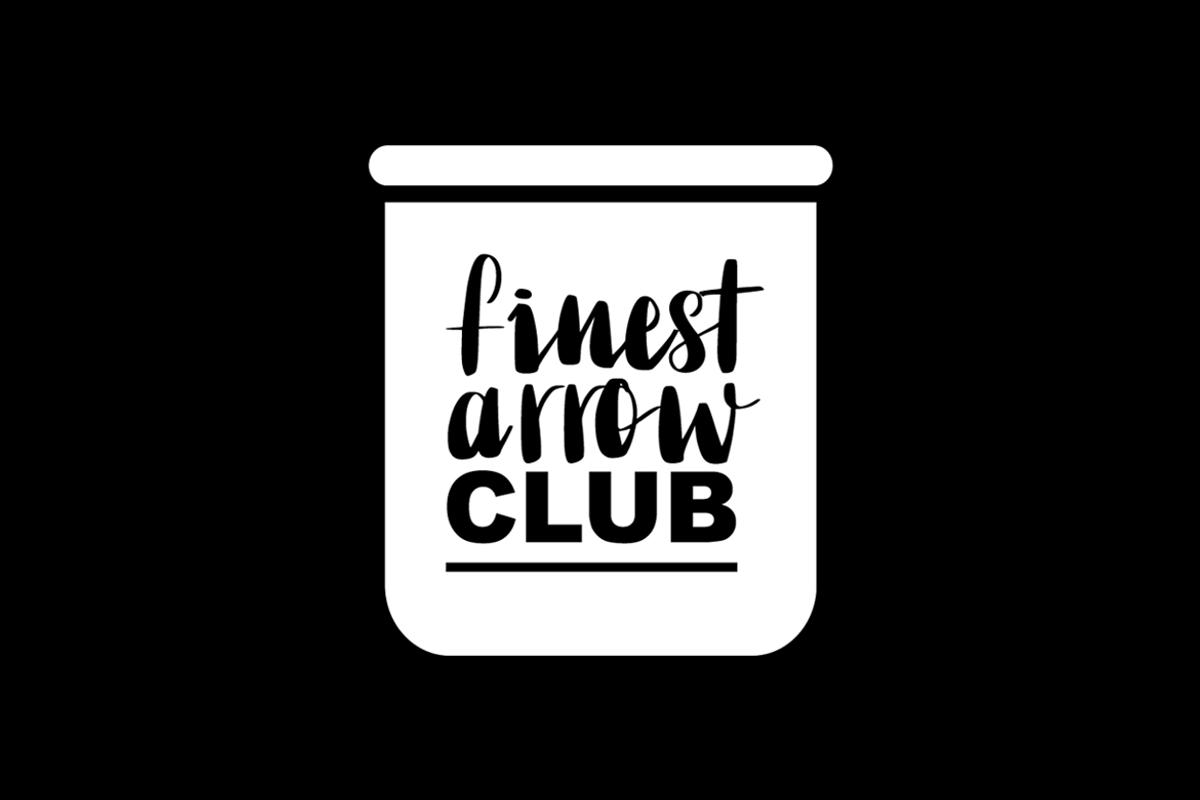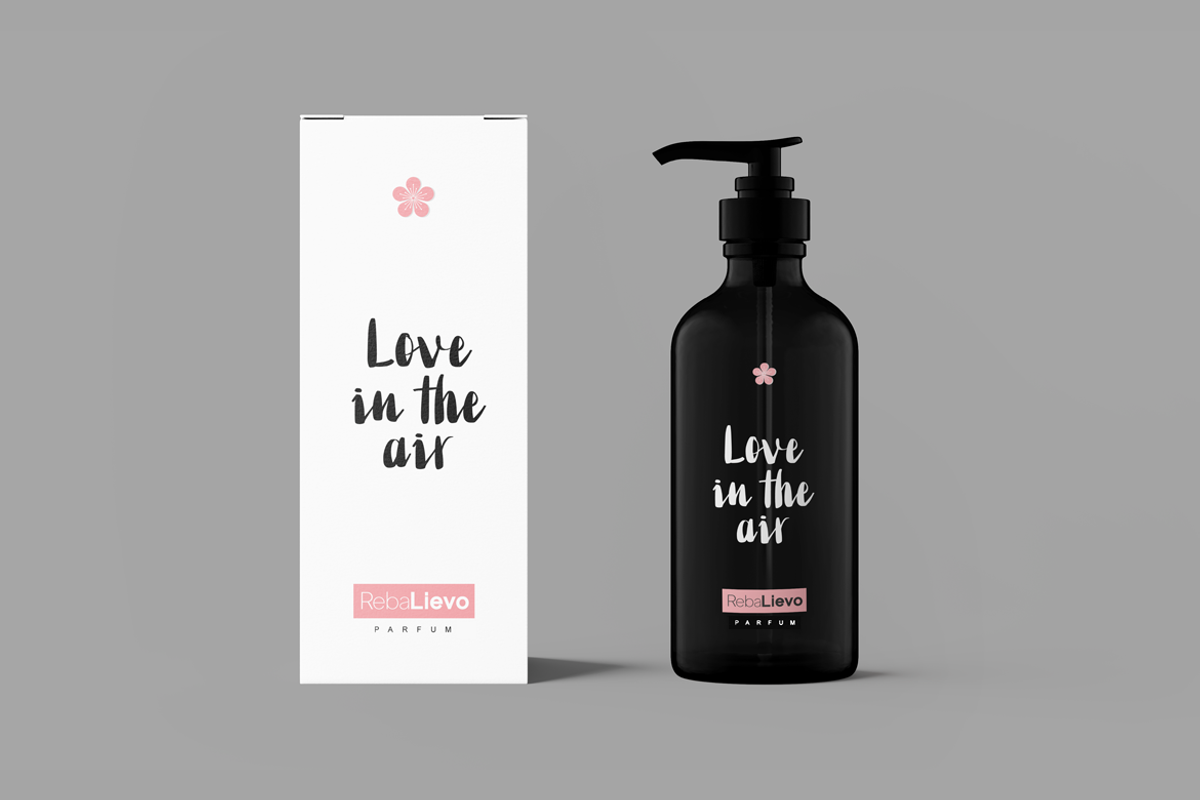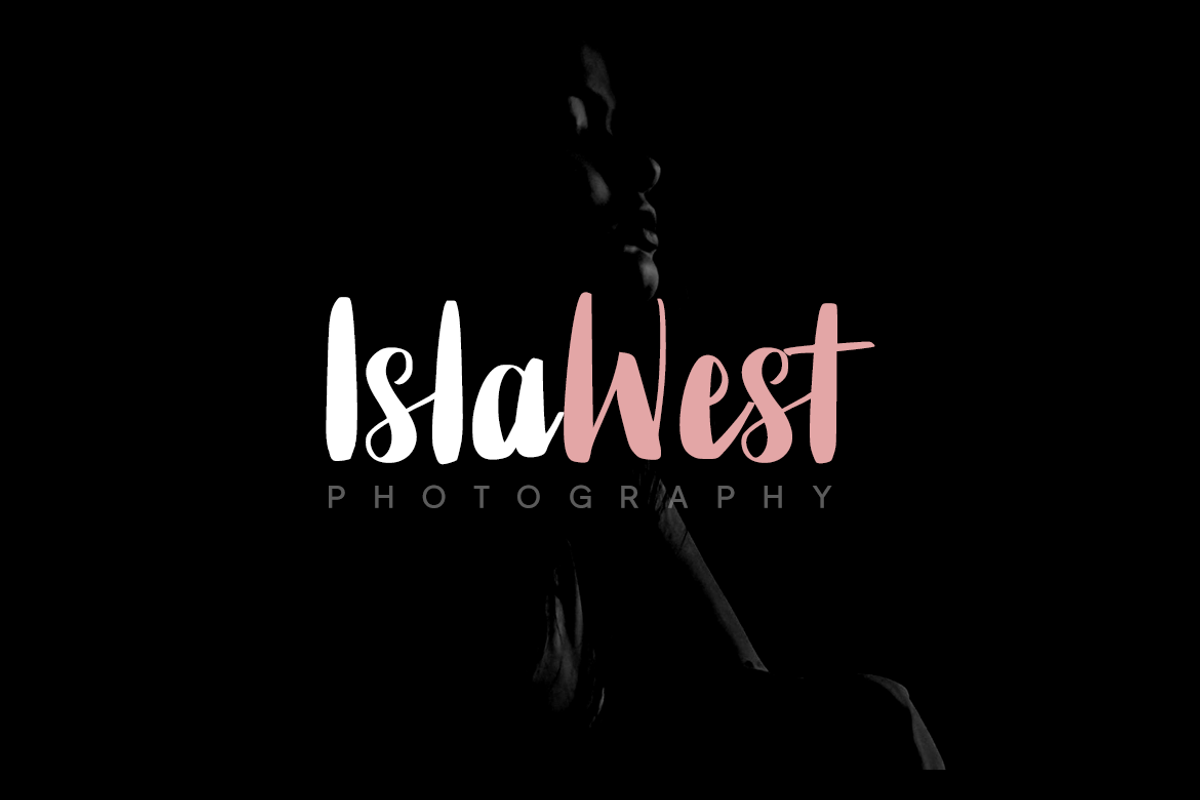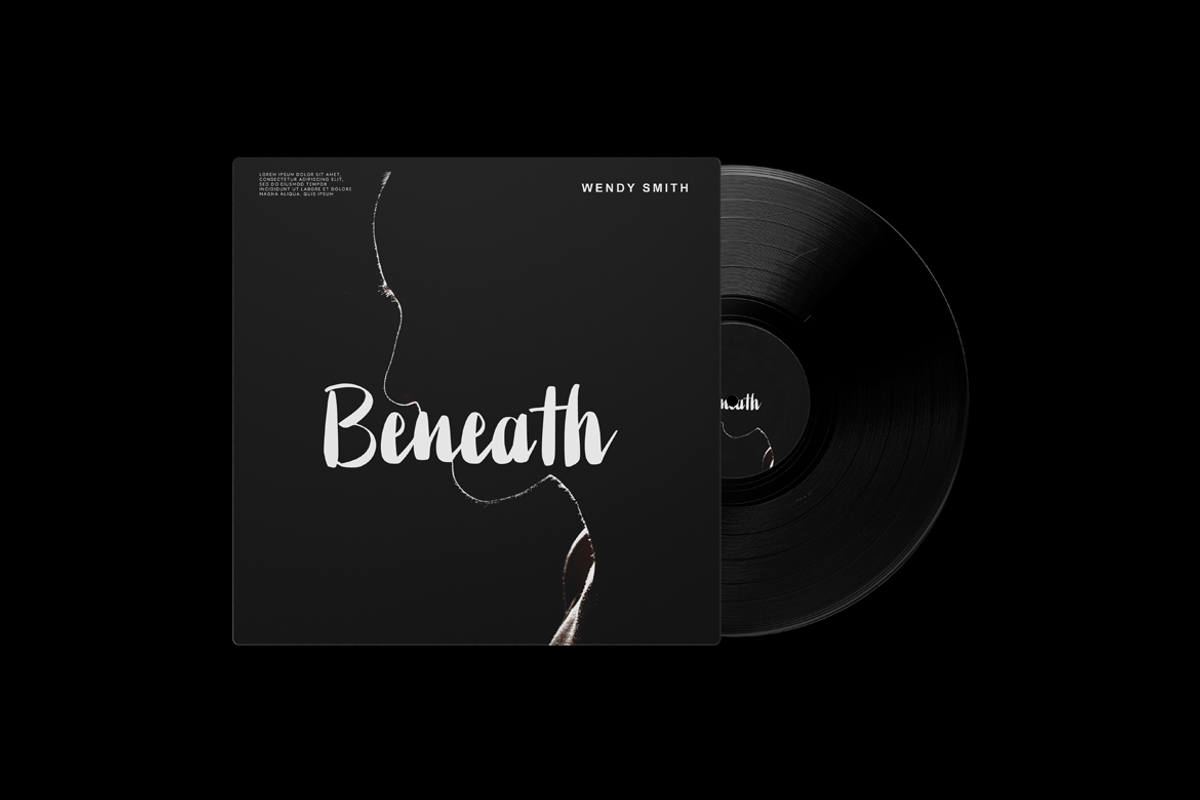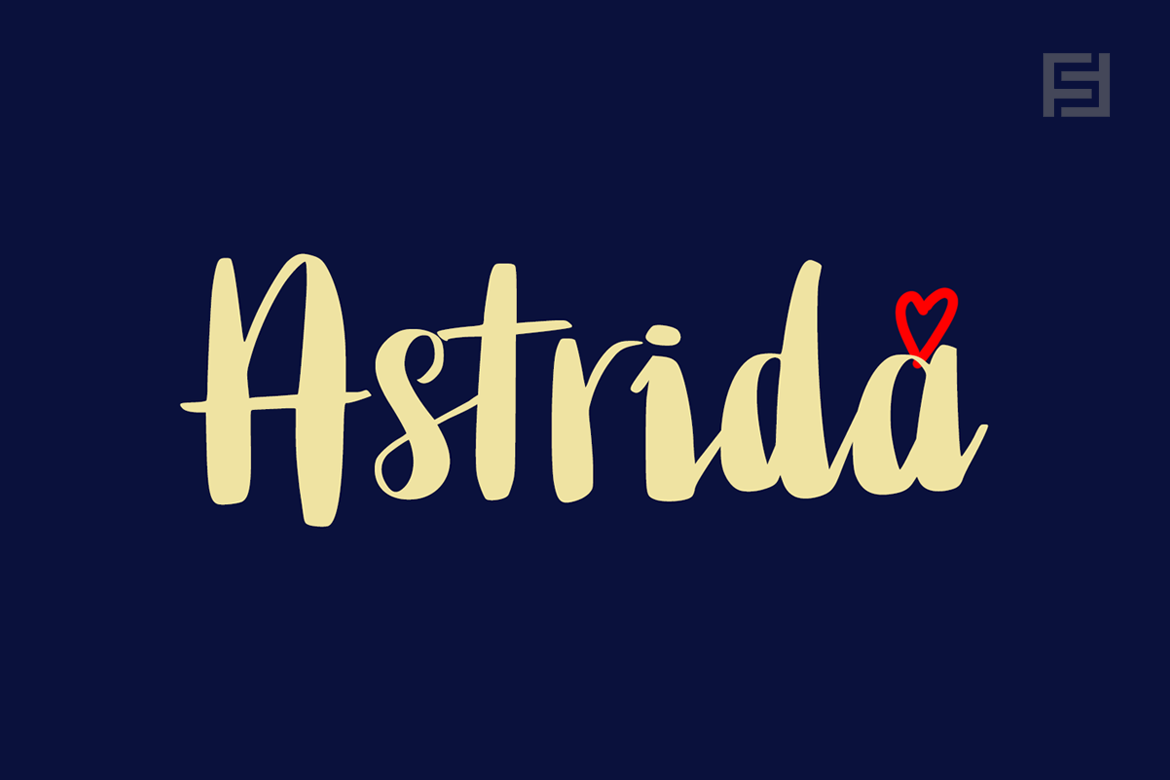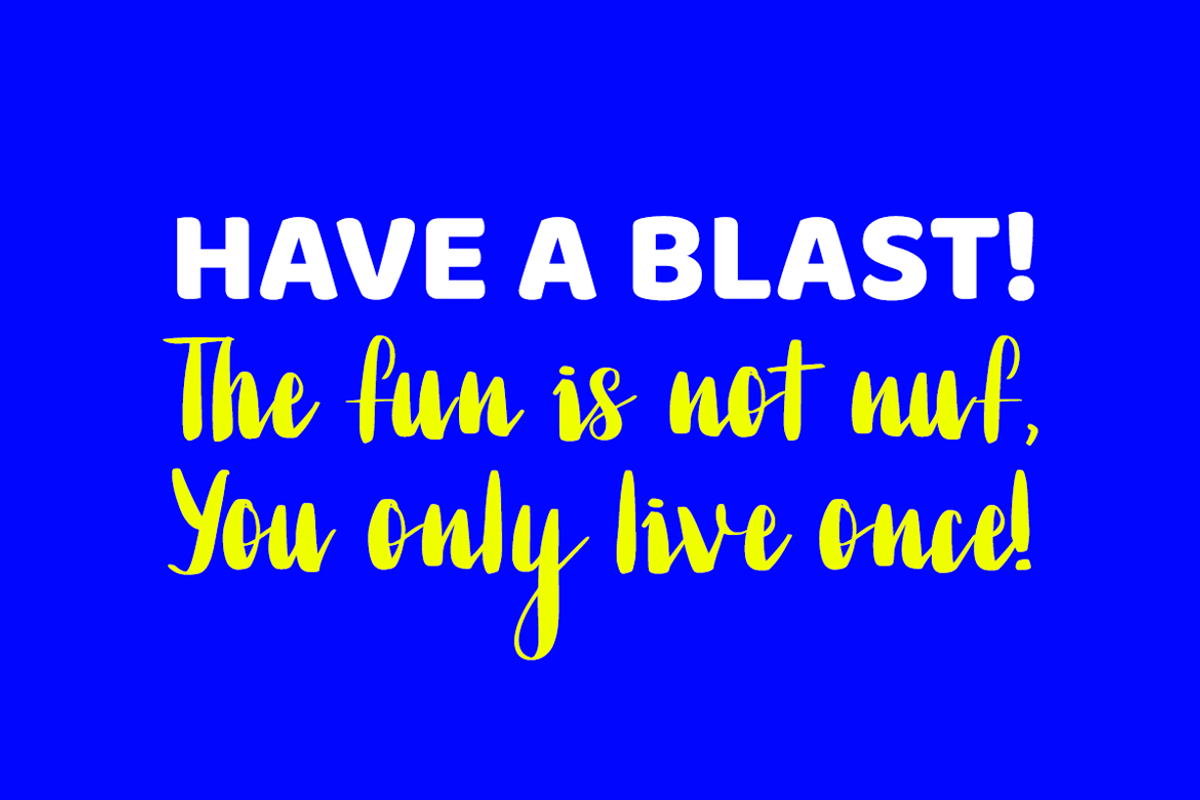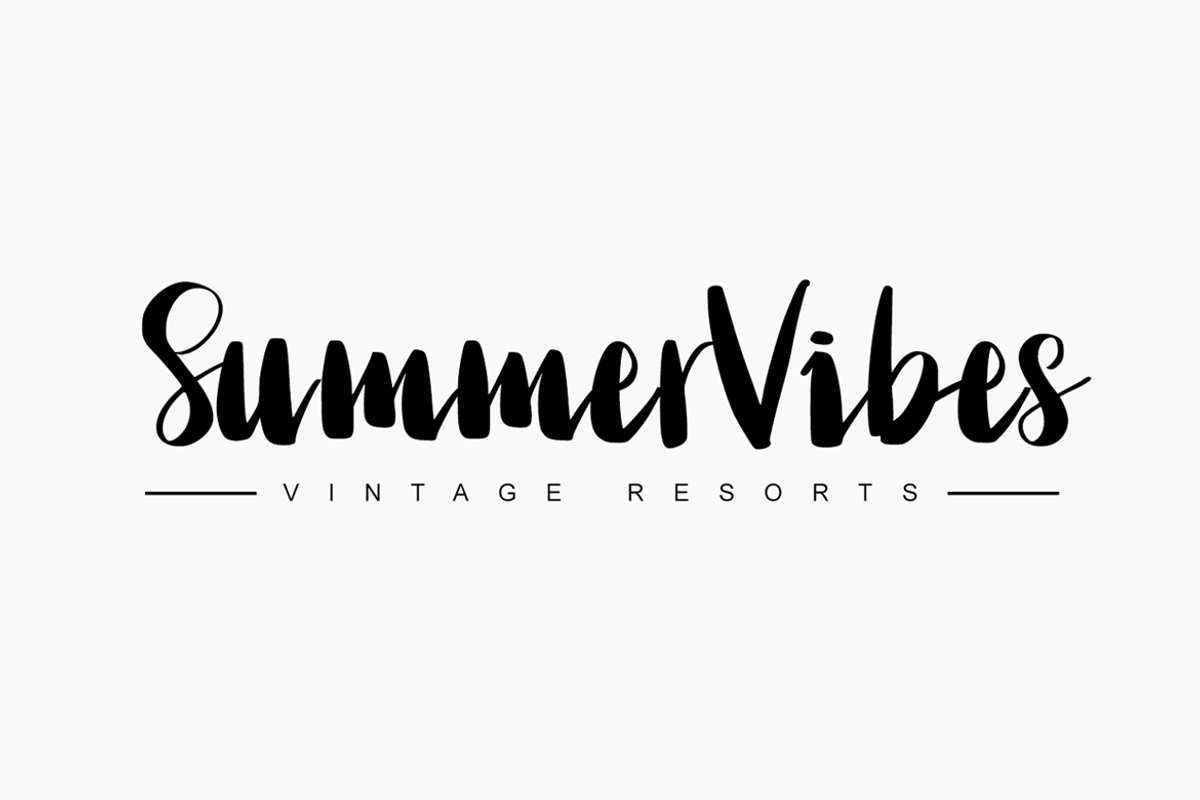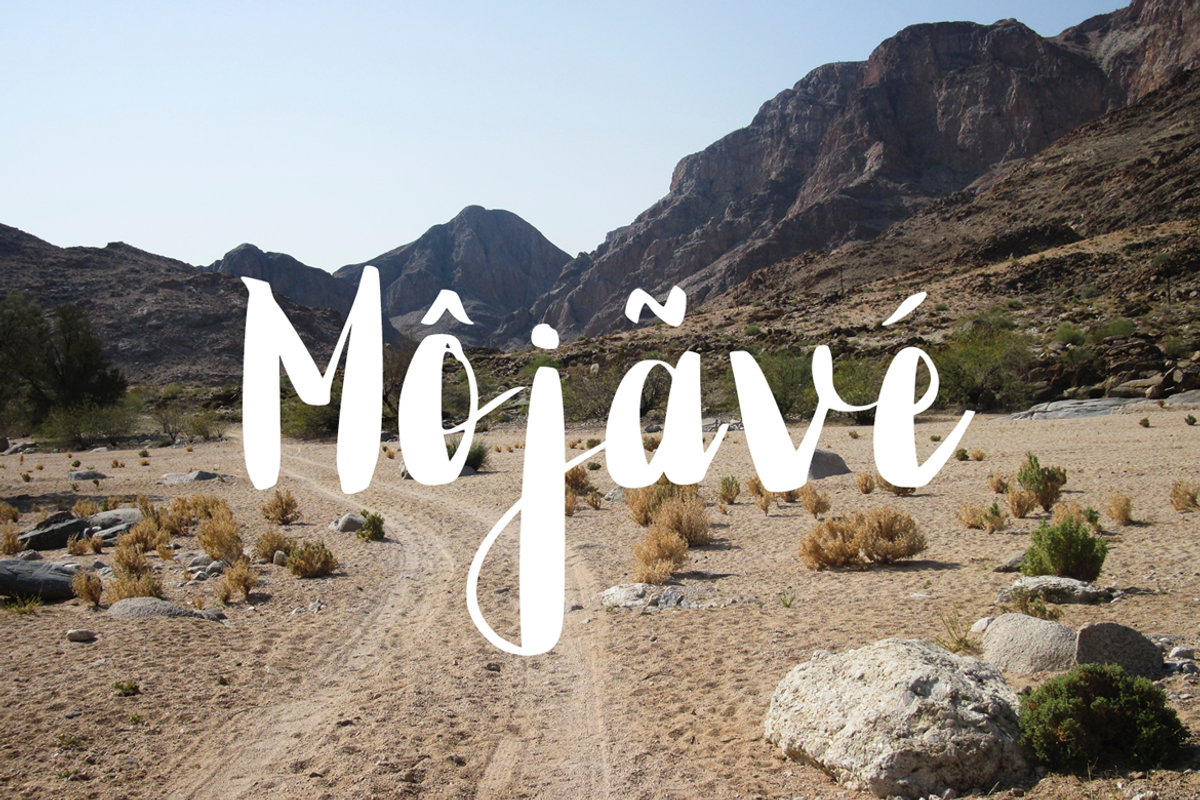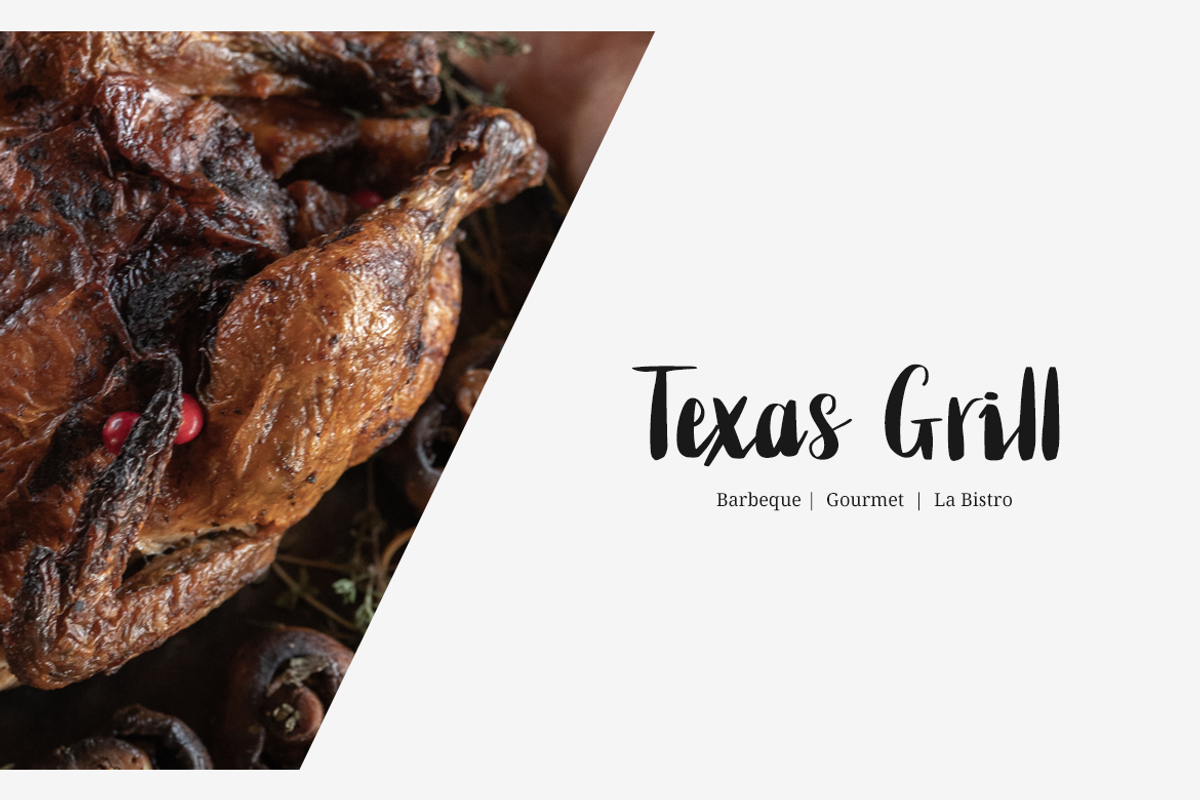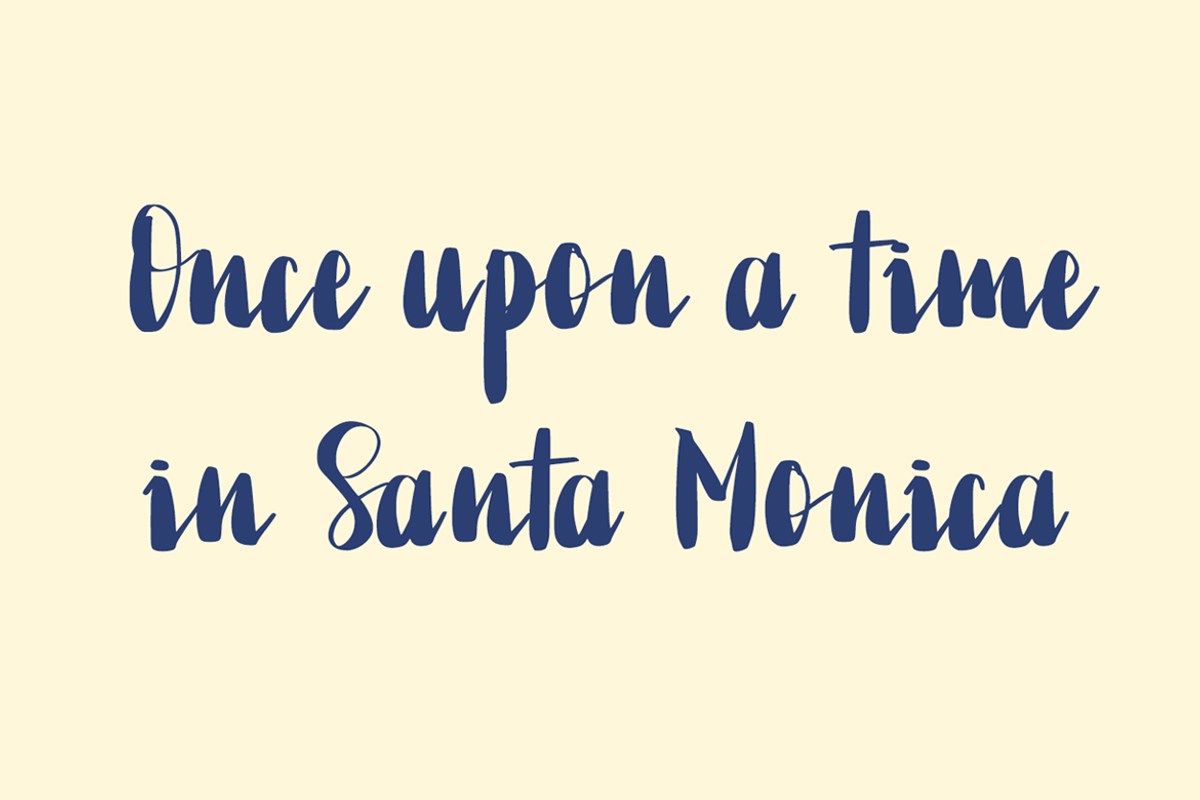
Astrida - Handwritten Brush Font
Astrida is a beautiful and fresh handwritten brush font for posters / marketing graphics / instagram story design / branding / logotype / decorations / signage / greeting cards / promotional designs and anything that needs the unique casual look. Astrida is completely handmade with perfection and aesthetics at its level best.
Advanced Kerning & Extended Character Sets:
We have performed advanced, in-depth kerning to make sure the font looks amazing on all possible letter combinations. The font includes extended language support including Western European & Central European sets with a total of 259 glyphs.